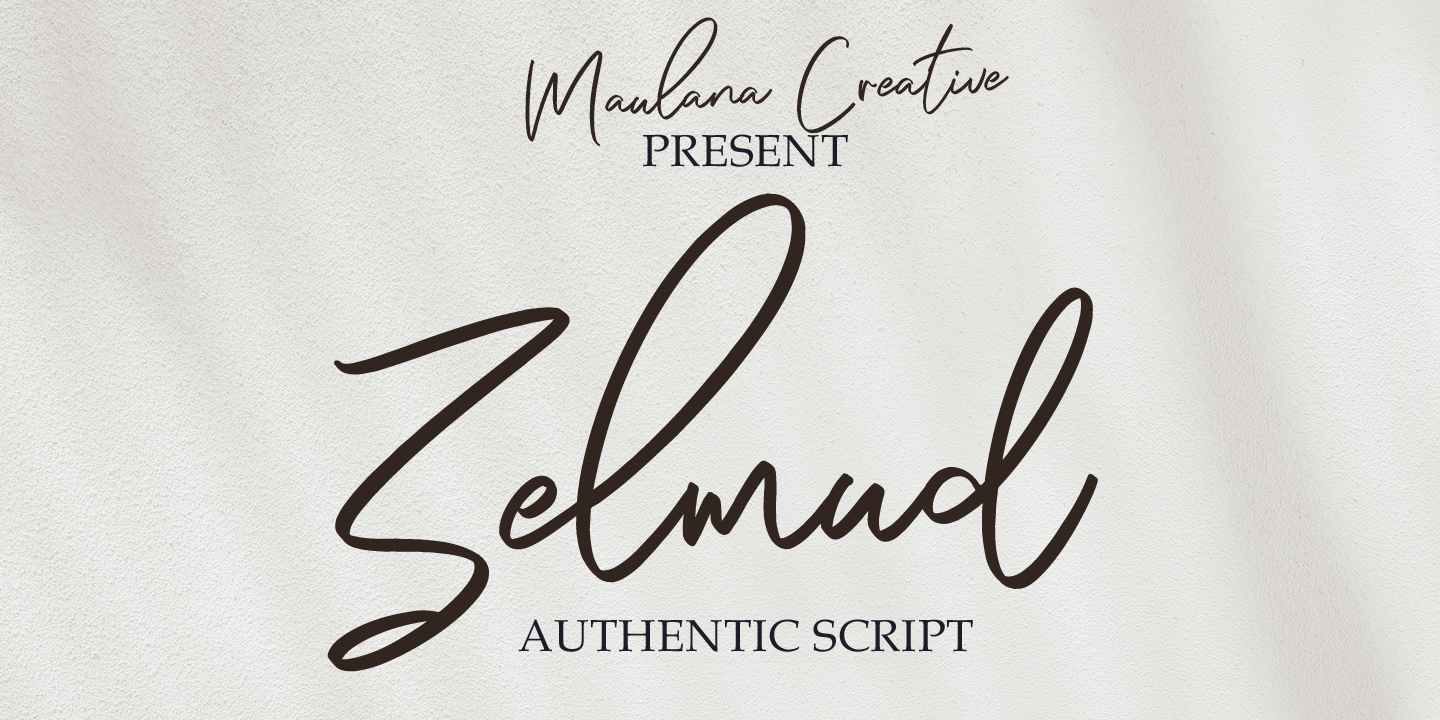
Zelmud Script Font is a dynamic and wonderfully expressive typeface, perfectly suited for projects that demand a handcrafted feel, artistic flair, and an undeniable personal touch. Imagine it bringing a unique, flowing elegance to wedding invitations, adding an authentic signature style to product packaging for artisanal goods, or gracing the covers of creative magazines. It's also an excellent choice for crafting heartfelt greeting cards, designing distinctive logos that convey craftsmanship, or infusing social media graphics and blog headers with a vibrant and inviting personality. If you're looking to convey authenticity, creativity, and a truly bespoke feel, Zelmud Script Font is an outstanding selection.
What makes Zelmud Script Font so exciting? It’s its unique ability to combine the natural spontaneity of genuine handwriting with the precision of digital design, resulting in a typeface that feels both intimately human and highly versatile. This font often features graceful connections, charming irregularities, and a lively flow that gives it an undeniable charisma and visual richness. Despite its decorative flair, Zelmud Script Font is meticulously designed to maintain excellent readability, ensuring your message is communicated beautifully and with an engaging, personal tone. Designers will appreciate its versatility in creating designs that feel both artistically expressive and professionally polished, making it a go-to choice for brands and projects that aim to connect with their audience through compelling visual storytelling.
The Zelmud Script Font family is typically designed to showcase a singular, beautifully crafted script style that perfectly embodies its unique appeal. While it may not feature extensive weight variations like a traditional text font, its strength lies in its inherent personality and often includes a rich set of stylistic alternates, ligatures, or swashes that enhance its handcrafted aesthetic. These subtle details allow Zelmud Script Font to maintain its cohesive and captivating look across various applications, from elegant endorsements to charming personal correspondence. Discover the authentic charm of Zelmud Script Font Free Download and infuse your designs with an unforgettable sense of artistry and individuality.